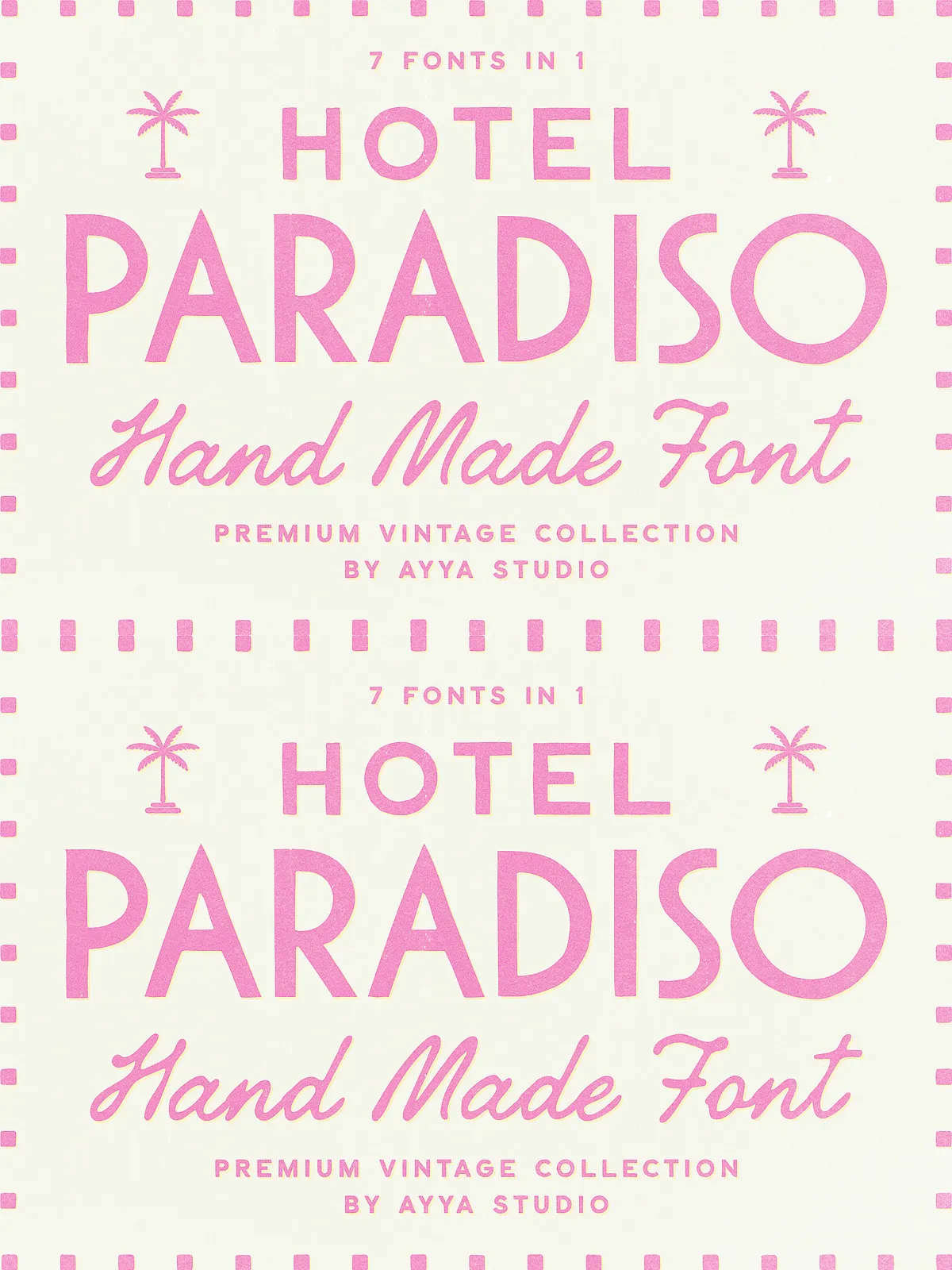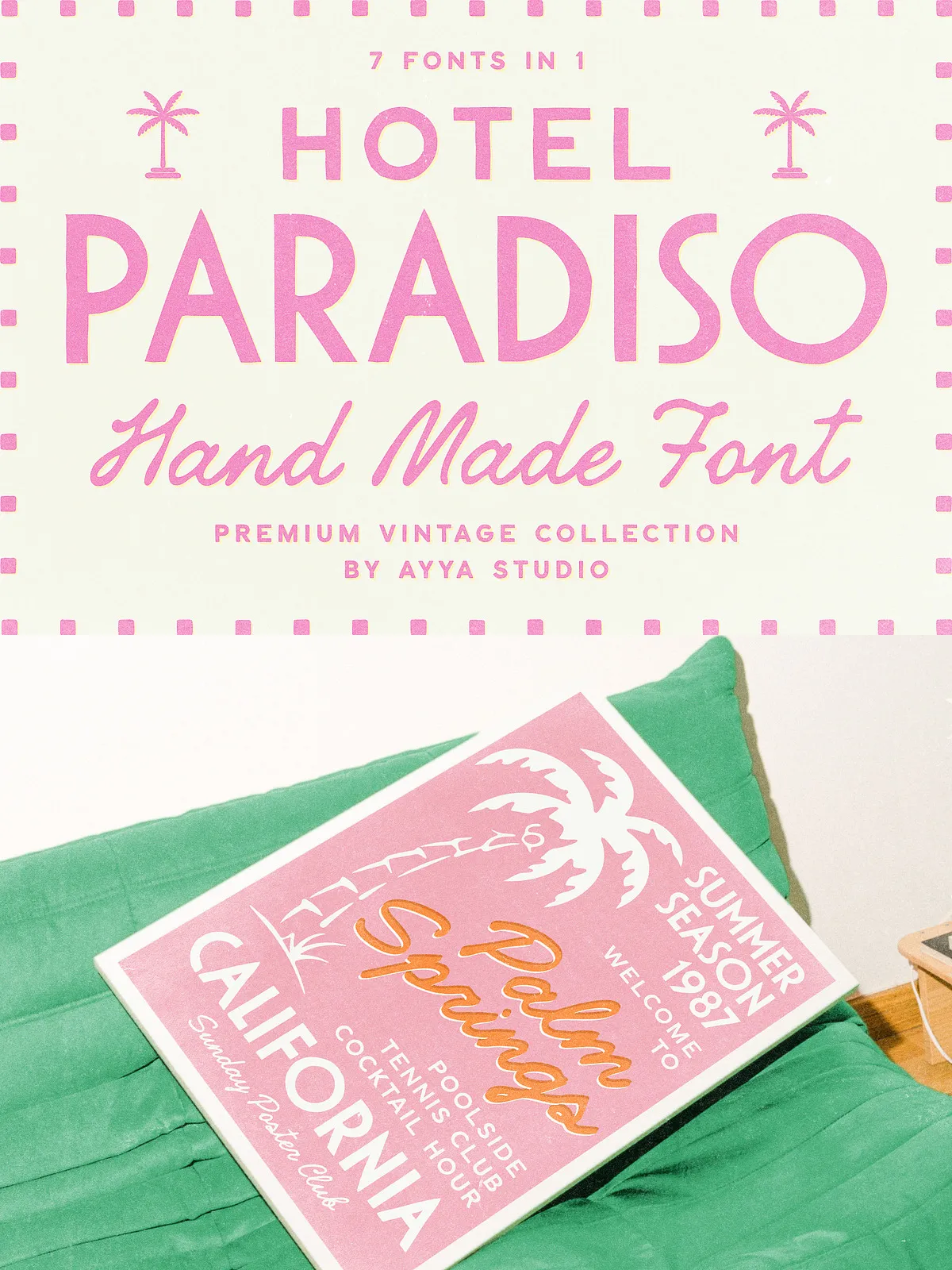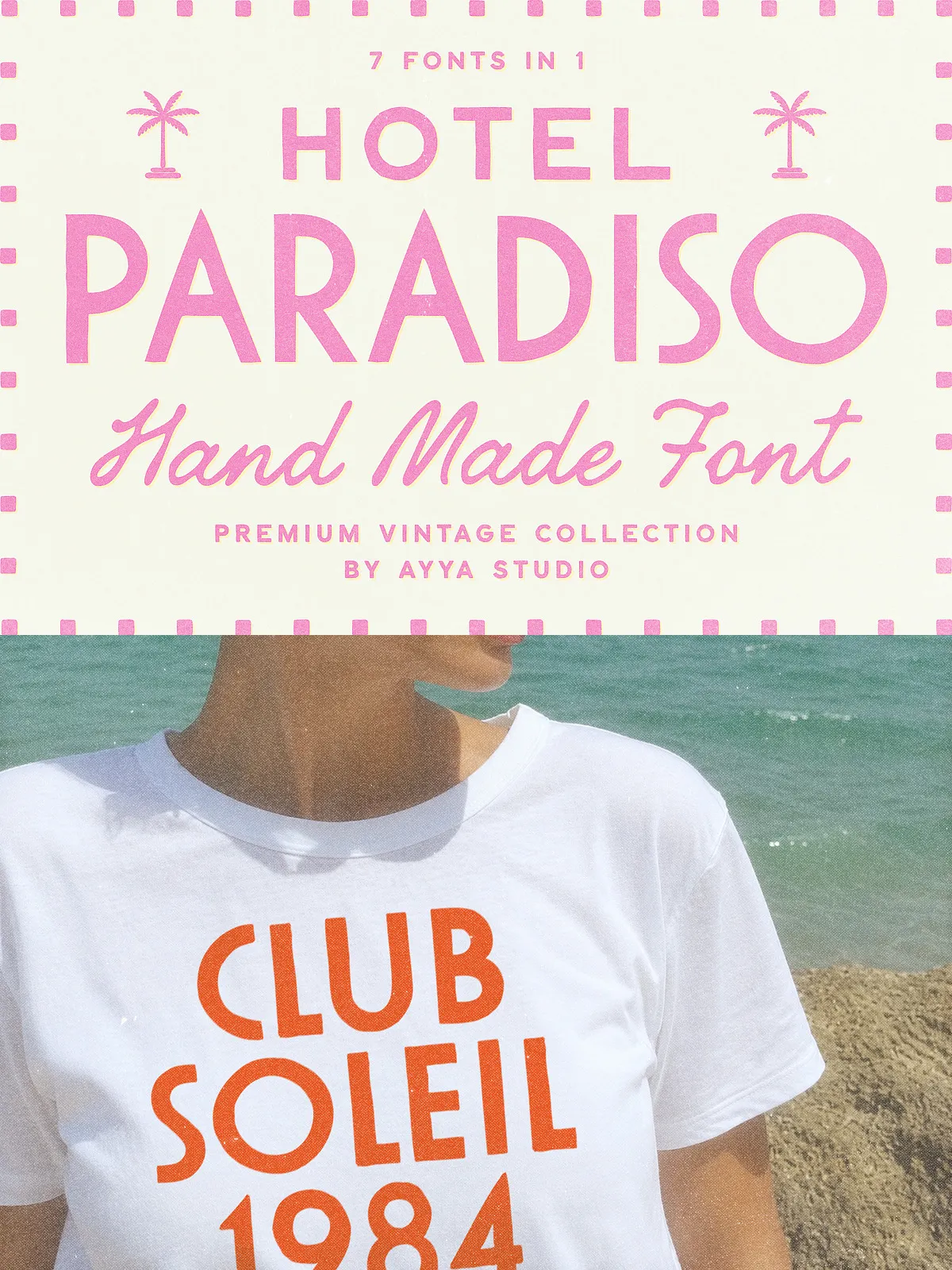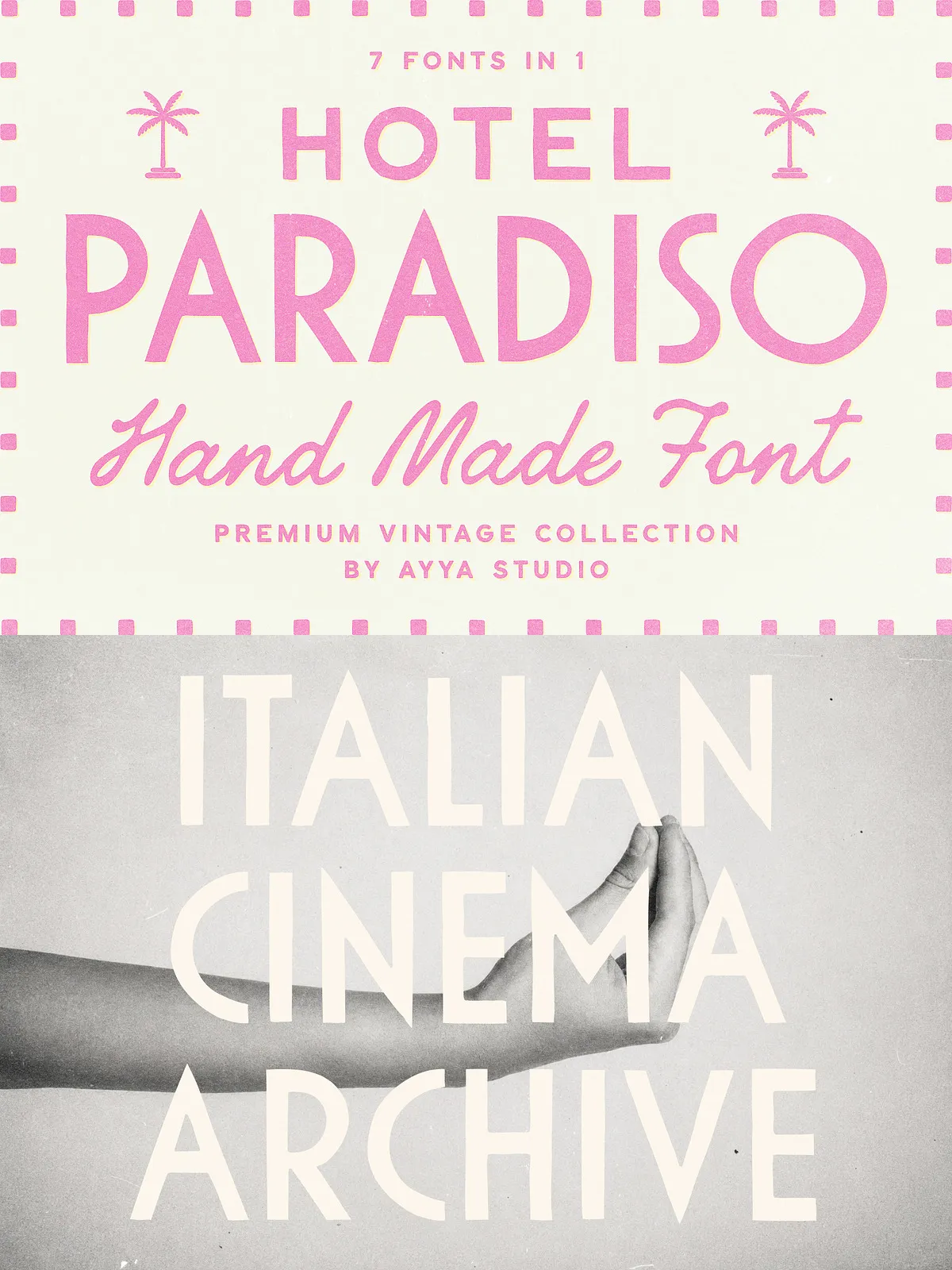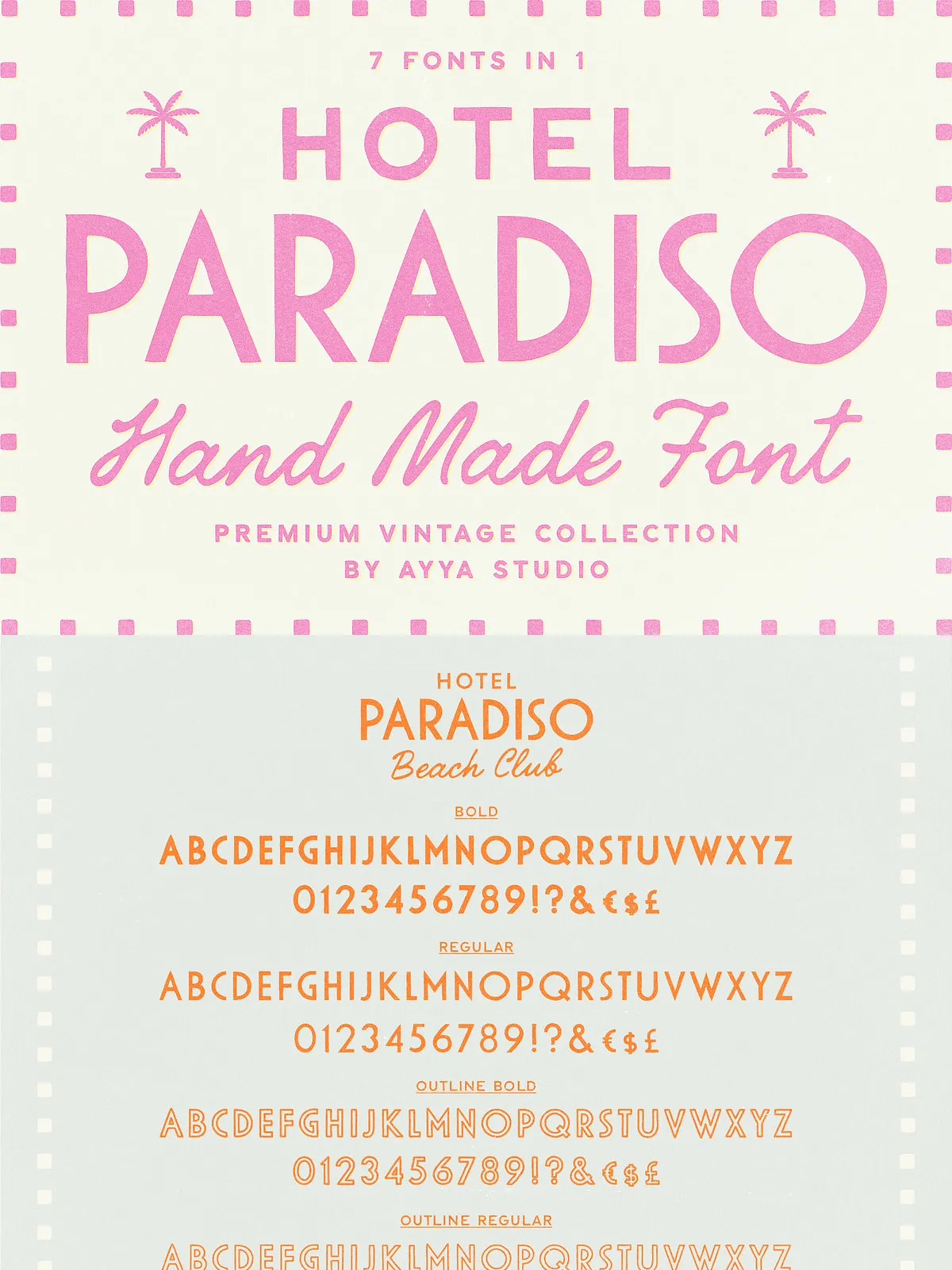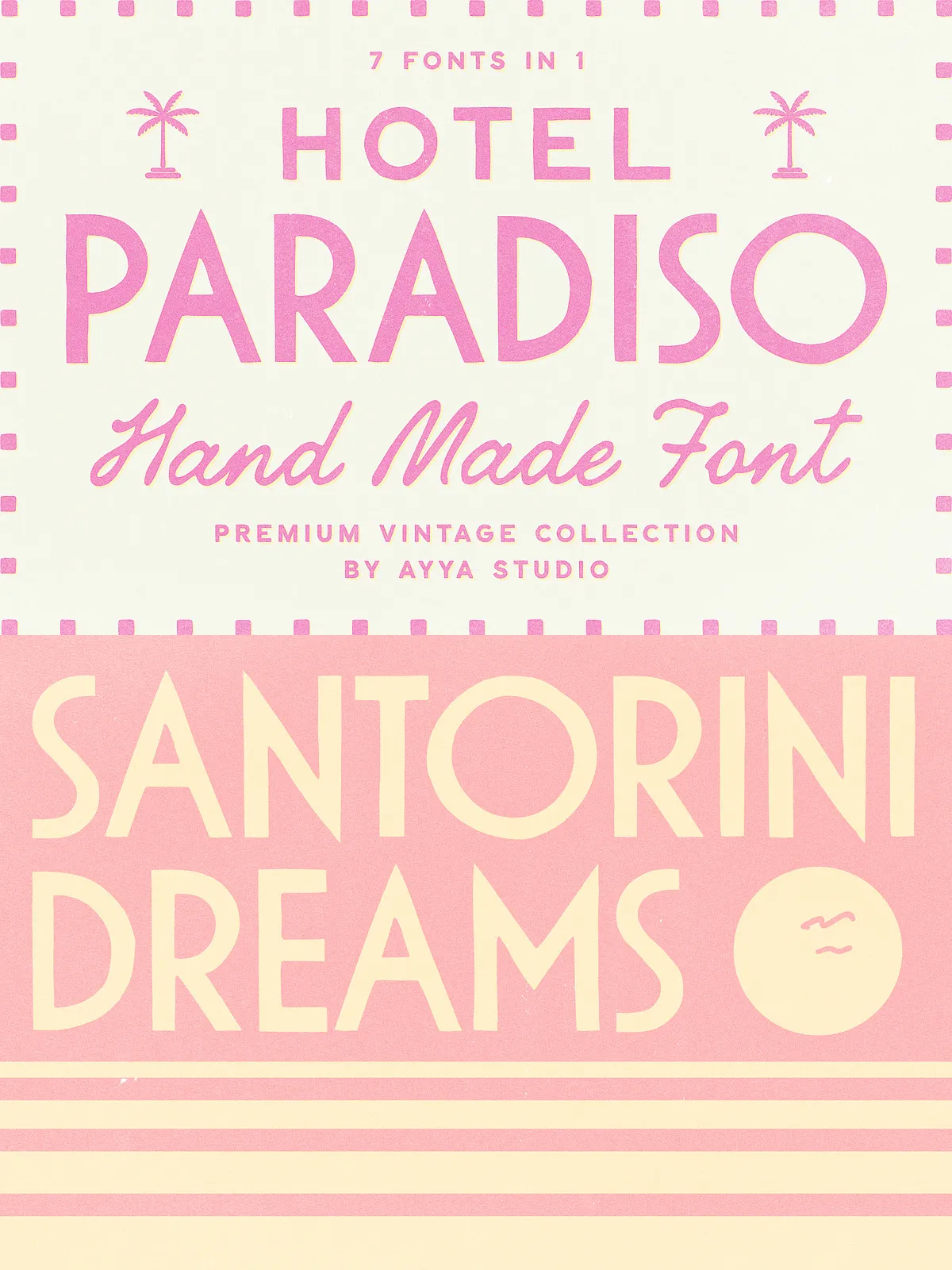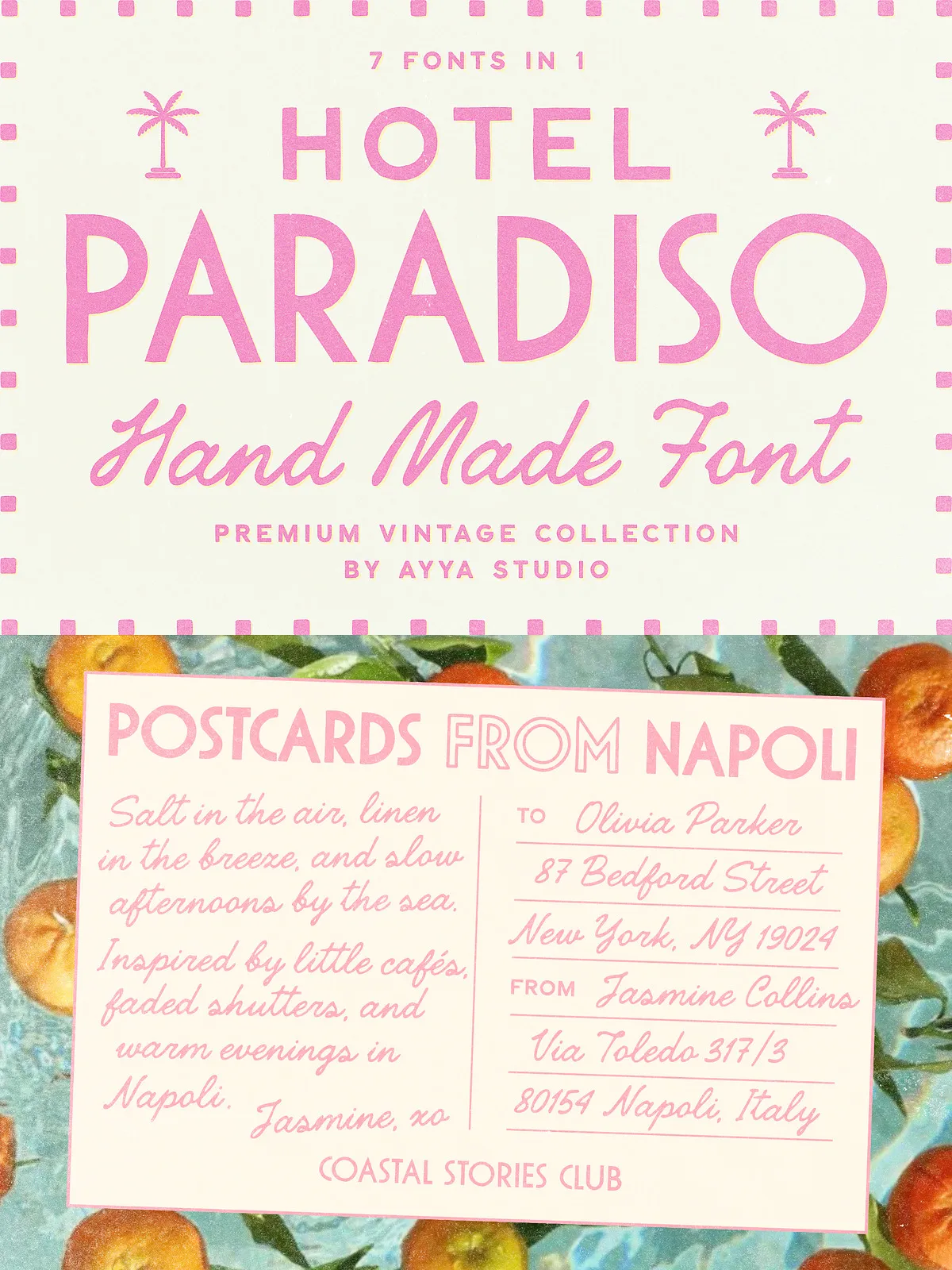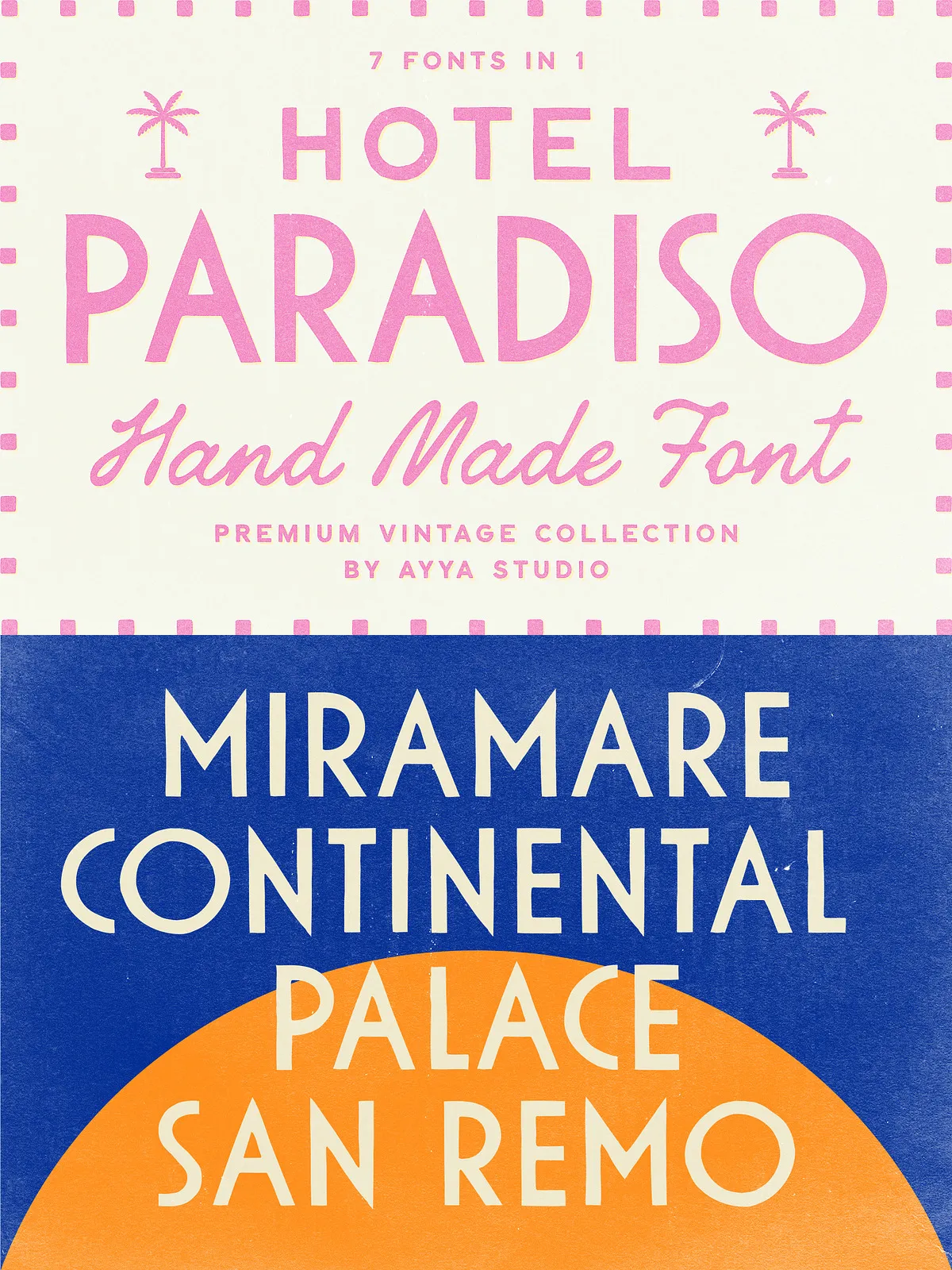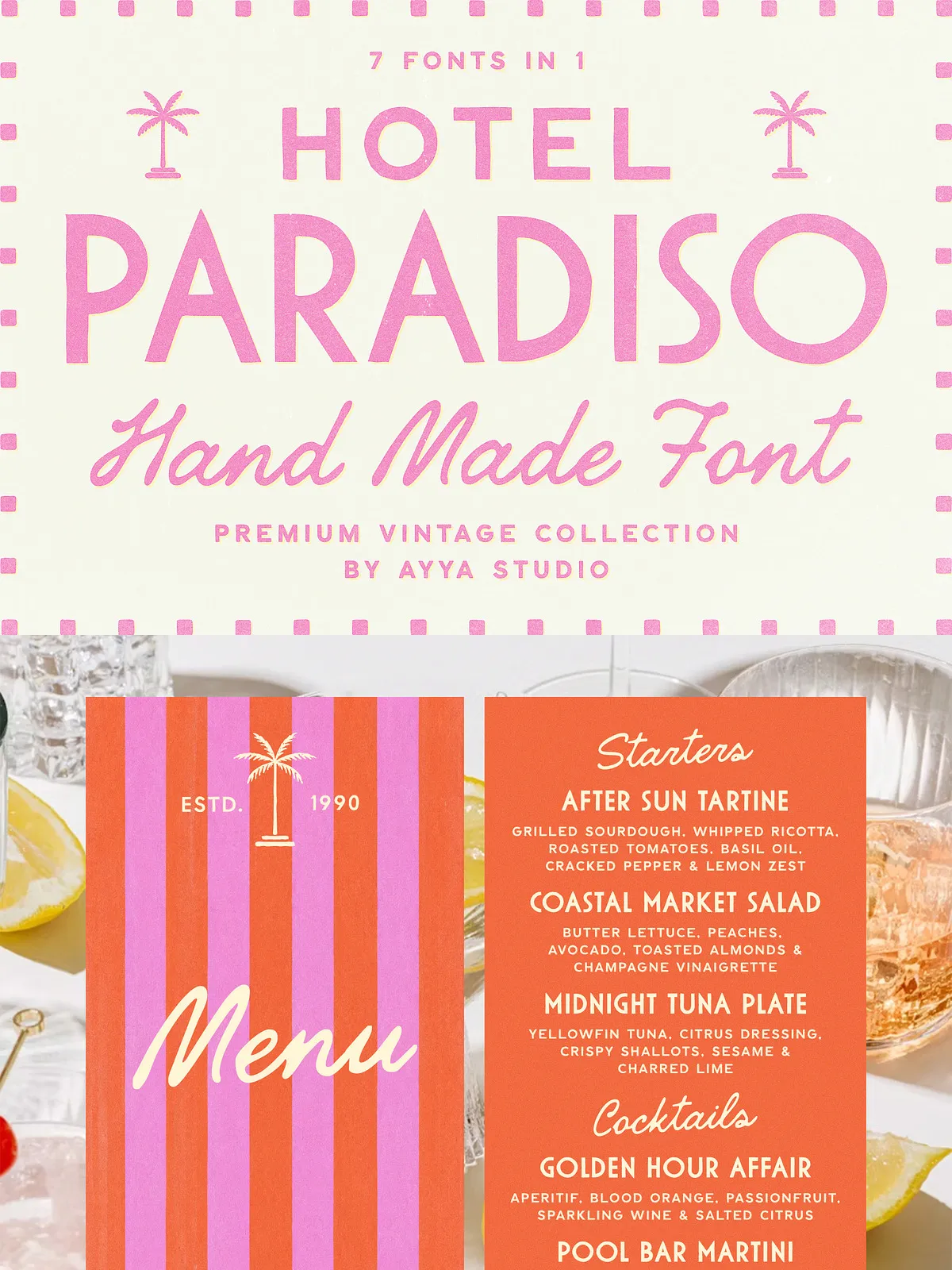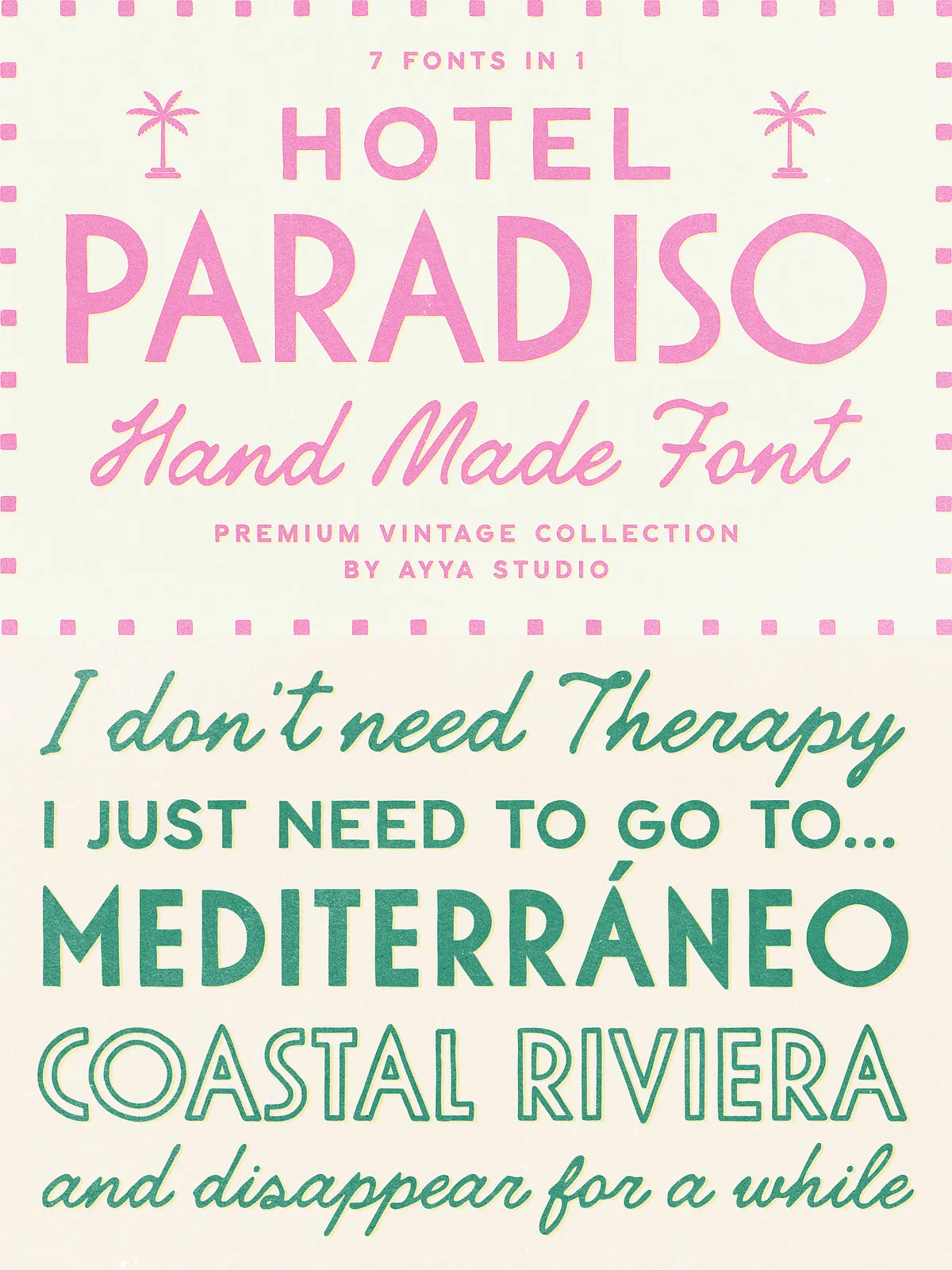
Hotel Paradiso draws from faded travel posters, painted storefront lettering, Italian matchbox graphics, and old packaging to deliver a font family that feels authentic and lived-in. This collection of seven fonts pairs bold display faces with elegant scripts and outlines to give your projects immediate character. Each style contains subtle imperfections and hand-crafted motion that read as intentional personality rather than roughness. Use Hotel Paradiso when you want designs to feel classic, slightly nostalgic, and unmistakably human.
Design Inspiration & Character
Rooted in Vintage References
The family grew from close study of historical ephemera: hotel signs, printed travel advertising, and hand-painted shop fronts. Those references inform the proportions, stroke rhythm, and ornamentation. The result feels vintage without tipping into cliché; it preserves the timeless confidence of older branding while remaining fresh and usable in modern layouts.
Hand-Drawn Motion
Designers will notice deliberate, human-paced motion across the letterforms: small shifts in baseline, modest variations in stroke width, and lively terminals. These features make the fonts read friendly and artisanal. Where strict geometry would feel cold, Hotel Paradiso breathes warmth into headlines and logos.
- Seven complementary styles that work together naturally
- Hand-drawn shapes that retain strong legibility at display sizes
- Bold and script pairings designed for instant hierarchy
- Outline versions for layered, textured, or vintage-print effects
- Optimized for branding, packaging, editorial, and apparel
Ideal Applications
Hotel Paradiso performs especially well where tone and personality matter. It enhances:
- Brand identities that aim to feel premium yet approachable
- Restaurant and hotel signage, menus, and printed collateral
- Packaging that benefits from a handcrafted touch and vintage cues
- Posters, editorial headlines, and promotional campaigns
- Apparel graphics, labels, and boutique product lines
- Invitations and event branding that call for relaxed elegance
Practical Tips for Designers
Pairing and Hierarchy
Combine the bold or caps weights with the script styles to build clear typographic hierarchy. Use the outline versions as accent layers—place them behind a solid weight with subtle texture to emulate screen-printed or stamped work. Pair Hotel Paradiso with a neutral sans-serif for body copy to preserve readability while letting the display fonts carry character.
Color, Texture, and Treatment
Hotel Paradiso responds well to warm palettes, natural paper textures, and restrained distress effects. Apply light grain, letterpress shadows, or foil accents to create tactile depth. When using the script styles, keep line lengths short and increase tracking to preserve legibility.
Why Choose Hotel Paradiso
Hotel Paradiso gives designers a robust toolkit for conveying effortless style. It makes projects feel curated and timeless without appearing overly formal. If you want typography that reads as both classic and personal—one that elevates a logo, anchors packaging, or sets the tone for a space—Hotel Paradiso delivers strong presence and handcrafted warmth.